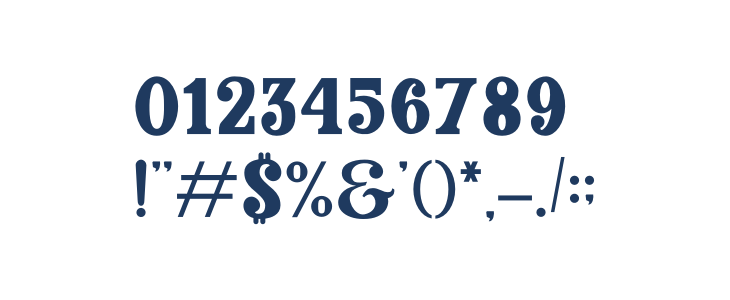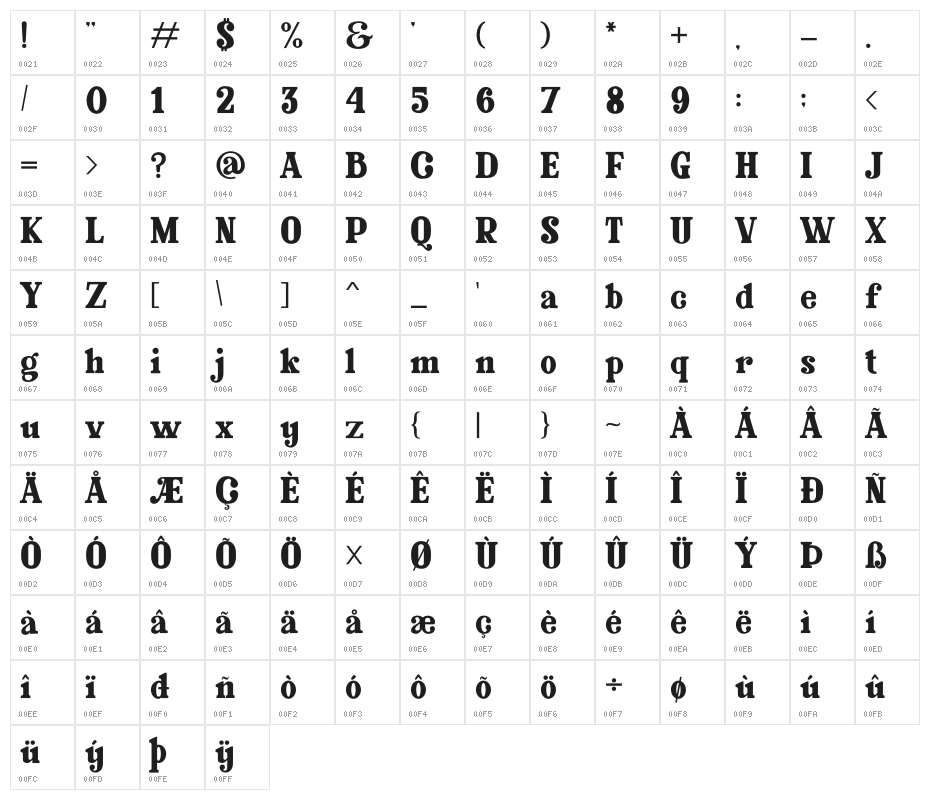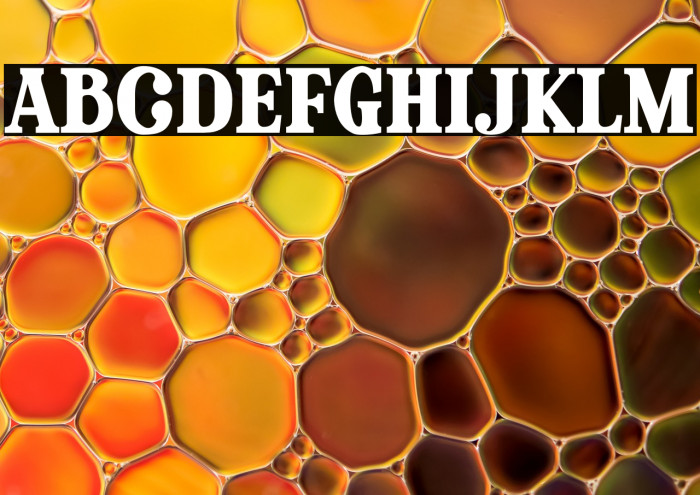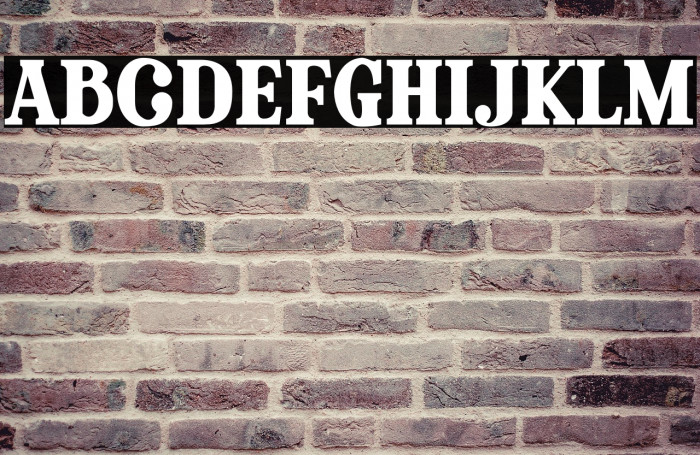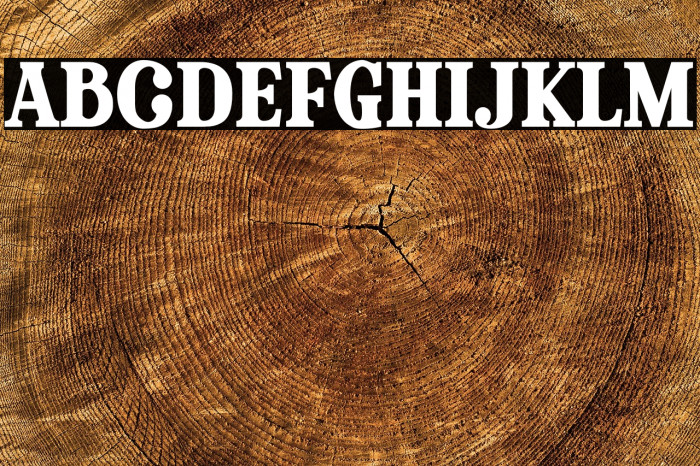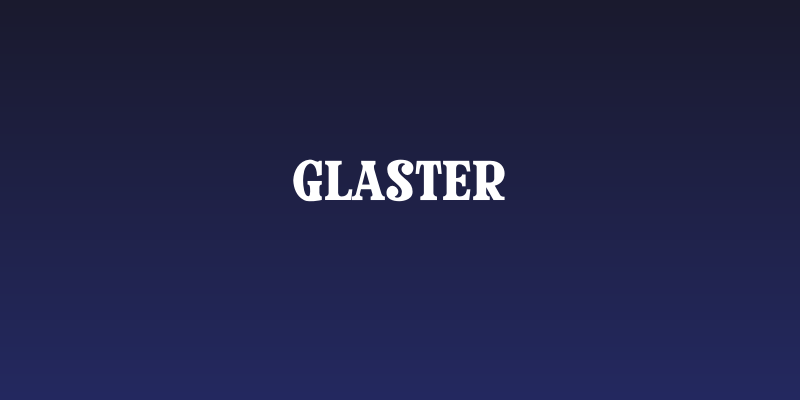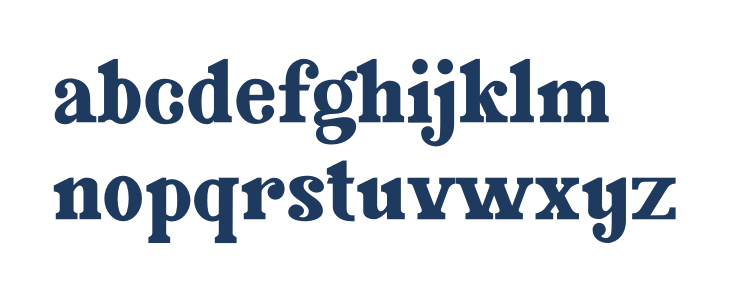
GLASTER Font
GLASTER Description
This font features bold, thick strokes with a strong presence, making it ideal for attention-grabbing designs. The serifs are pronounced, adding a classic touch to the overall modern aesthetic. The uppercase letters are robust and commanding, while the lowercase letters maintain a consistent weight, ensuring readability. Numbers and special characters are designed with the same boldness, providing a cohesive look across all elements. The font's style is versatile, suitable for both digital and print media, and it stands out in headlines and logos due to its impactful design.
Overall StyleClassic
Proposed ProjectsIdeal for branding, headlines, posters, and any project requiring a strong visual impact.